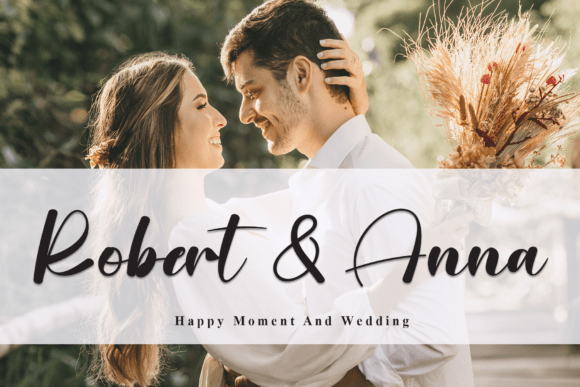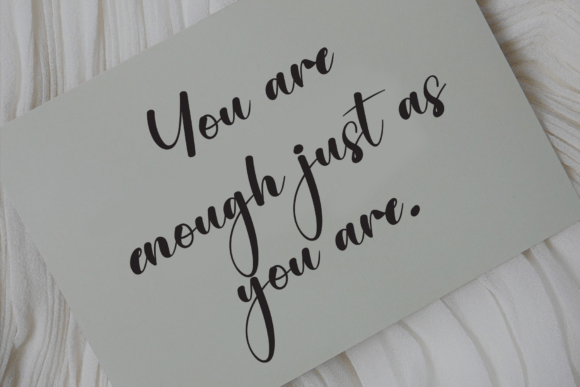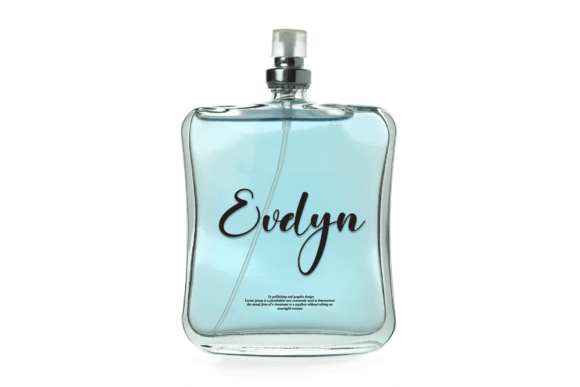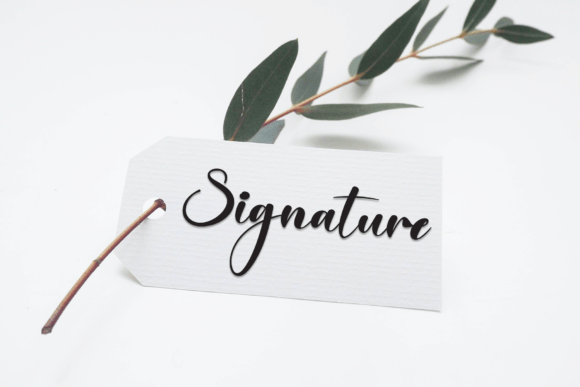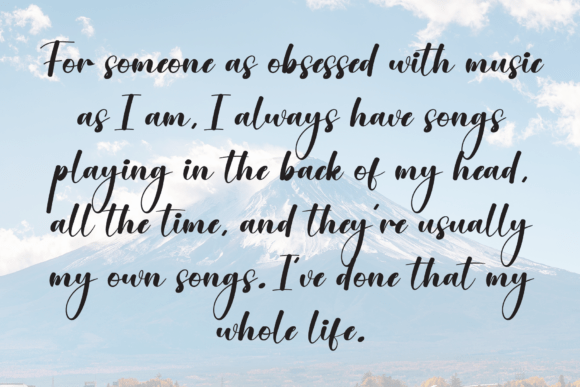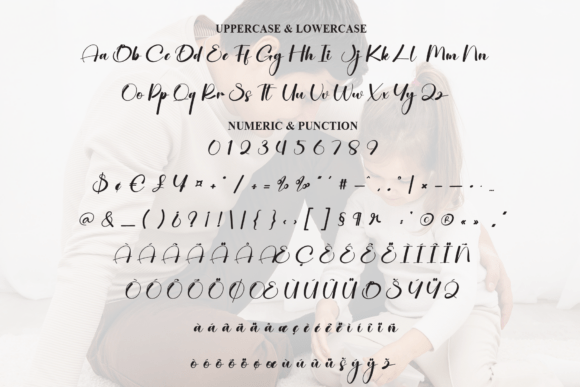
The Ultimate Design Game-Changer: Father Font
I’ll never forget the design project that had me on the edge of my seat. I was working on a wedding invitation suite, and my client had a very specific vision – elegant, modern, and with a personal touch. The problem was, I couldn’t find the perfect font to bring it all together. That was until I stumbled upon Father Font, a game-changing creative product that exceeded my expectations in every way.
As a designer, I’m always on the lookout for high-quality fonts that can elevate my work. Here’s what I love about Father Font:
- ✨ Stunning, modern letterforms that add a touch of sophistication to any project
- ✅ Extensive character set, including PUA-encoded characters for easy access
While Father Font is an exceptional font, there are a few minor quirks to be aware of:
- 🤔 Some users may find the font’s stylistic alternates take time to get used to
- ⚠️ Occasional kerning issues may arise in certain applications
The Designer’s Inspiration: A Backstory
While the true story behind Father Font remains a mystery, it’s easy to imagine a designer pouring their heart and soul into creating a font that’s both beautiful and functional. Perhaps they were inspired by the elegance of modern typography, combined with a passion for creativity and self-expression.